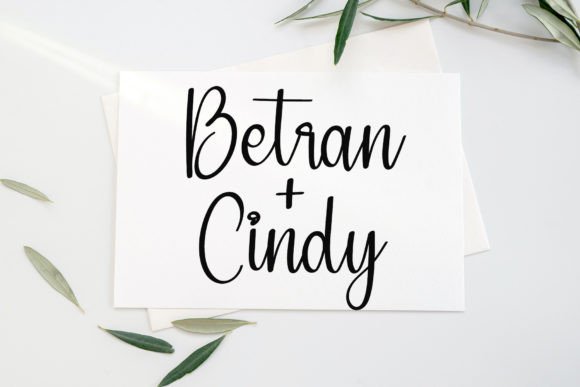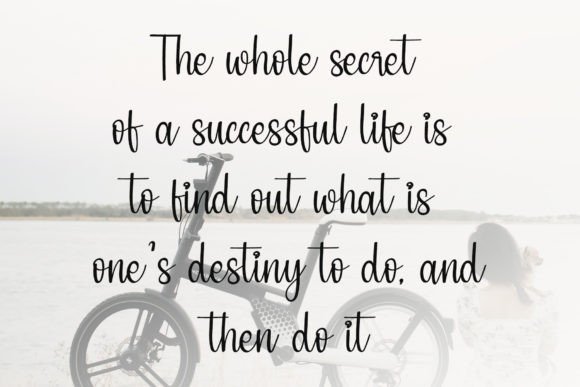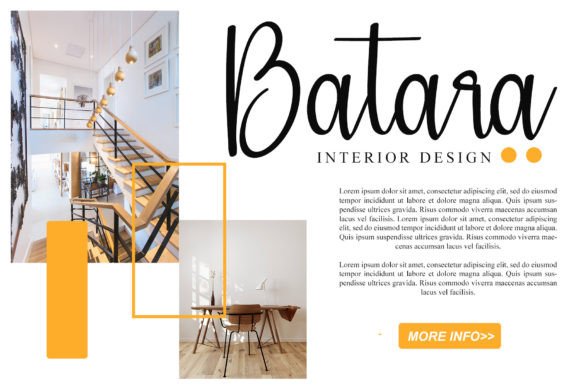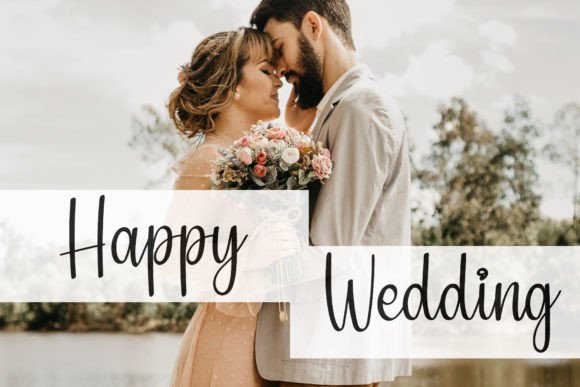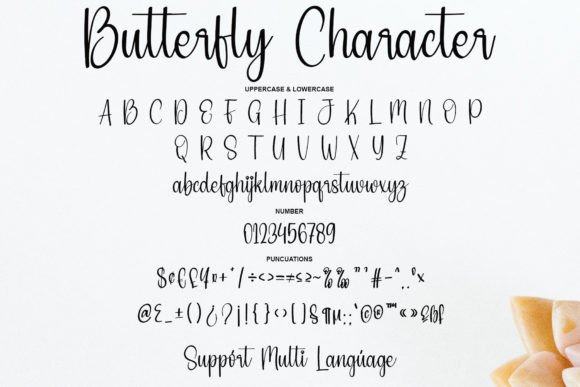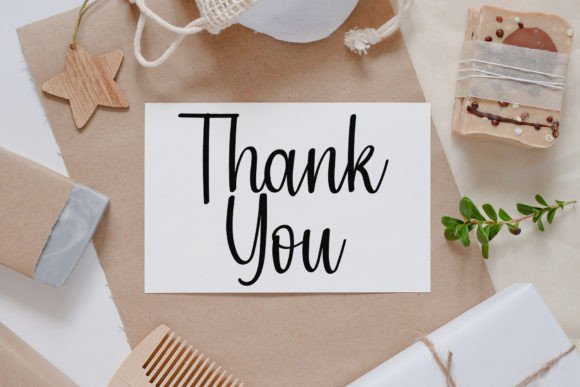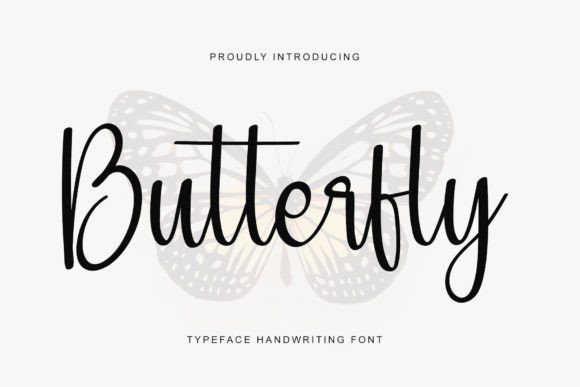
The Beauty of Butterfly Font: Elevate Your Designs with this Unique Handwritten Style
Are you a designer or crafter looking for a font that can add a touch of elegance and whimsy to your projects? Look no further than the Butterfly Font. This unique, round lettered handwritten font is carefully crafted to produce the desired results, making it perfect for a wide range of applications. In this article, we’ll explore the features and benefits of the Butterfly Font, and show you how to make the most of this beautiful font in your designs.
What is Butterfly Font?
Butterfly Font is a one-of-a-kind, handwritten font that is characterized by its round, flowing letters. The font is designed to be highly legible and versatile, making it suitable for use in a variety of contexts, from titles and invitations to letters and other types of products. The font’s unique style is reminiscent of traditional handwriting, but with a modern twist that makes it perfect for contemporary designs.
Key Features of Butterfly Font
So, what sets Butterfly Font apart from other fonts? Here are some of its key features:
- Unique and elegant design: The Butterfly Font has a distinctive, hand-crafted look that is sure to turn heads. Its round letters and flowing lines give it a whimsical, artistic feel that is perfect for designs that need a touch of personality.
- Highly legible: Despite its ornate appearance, the Butterfly Font is highly legible, even at small sizes. This makes it perfect for use in a wide range of applications, from titles and headings to body text.
- Versatile: The Butterfly Font is incredibly versatile, and can be used in a variety of contexts, from formal invitations to casual letters and notes.
- Easily customizable: The Butterfly Font is highly customizable, allowing you to adjust the lettering, spacing, and other elements to suit your design needs.
Uses for Butterfly Font
So, what can you use the Butterfly Font for? The possibilities are endless! Here are some ideas to get you started:
- Titles and headings: The Butterfly Font is perfect for use in titles and headings, where its unique style can really make an impact.
- Invitations: Whether you’re planning a wedding, birthday party, or other special event, the Butterfly Font is a great choice for invitations.
- Letters and notes: The Butterfly Font is also great for use in letters and notes, where its elegant style can add a touch of personality.
- Product labels and packaging: The Butterfly Font can also be used in product labels and packaging, where its unique style can help your products stand out.
Tips for Using Butterfly Font
Here are some tips for getting the most out of the Butterfly Font:
- Use it sparingly: While the Butterfly Font is beautiful, it can be overwhelming if used too much. Use it sparingly to add emphasis and interest to your designs.
- Experiment with different colors and textures: The Butterfly Font looks great in a variety of colors and textures. Experiment with different options to find the one that works best for your design.
- Pair it with other fonts: The Butterfly Font can be paired with other fonts to create a unique and interesting look. Try pairing it with a bold, sans-serif font for a striking contrast.
The Butterfly Font is a unique and beautiful handwritten font that is perfect for designers and crafters looking to add a touch of elegance and whimsy to their projects. With its highly legible and versatile design, it’s suitable for use in a wide range of applications, from titles and invitations to letters and product labels. By following the tips outlined in this article, you can make the most of the Butterfly Font and create stunning designs that are sure to turn heads.